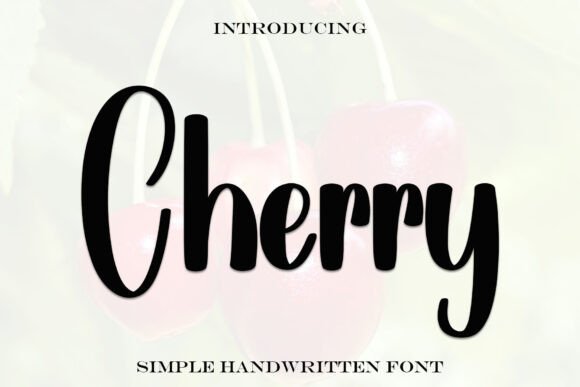
Introducing Cherry Font: Elevate Your Designs with Elegance
Are you on the hunt for a font that adds a touch of sophistication and charm to your projects? Look no further than Cherry Font, a stunning handwritten font that embodies elegance and timeless style. With its unique and distinct character, Cherry Font is perfect for designers and crafters seeking to create spectacular designs that leave a lasting impression.
The Charm of Cherry Font
Cherry Font is a beautifully crafted handwritten font that boasts an elegant touch, making it ideal for a wide range of projects. Whether you’re working on a logo, branding materials, invitations, or any other design that requires a personal touch, Cherry Font is sure to impress. Its classic and sophisticated style ensures that your designs will stand the test of time, remaining relevant and stylish for years to come.
Key Features of Cherry Font
- Handwritten Elegance: Cherry Font is meticulously designed to mimic the fluidity and charm of handwritten text, adding a personal and intimate feel to your designs.
- Distinctive Style: The font’s unique character set ensures that your designs will stand out from the crowd, offering a refreshing alternative to more traditional fonts.
- Timeless Appeal: Cherry Font’s classic style ensures that it will remain relevant and fashionable, even as design trends evolve.
- Versatility: Suitable for a wide range of projects, from digital designs to print materials, Cherry Font adapts effortlessly to various mediums and applications.
Cherry Font is a versatile tool that caters to the needs of both designers and crafters. Whether you’re a professional designer looking for a unique font to add to your portfolio or a crafter seeking to personalize your DIY projects, Cherry Font offers endless possibilities. Its user-friendly nature makes it accessible to individuals of all skill levels, ensuring that everyone can enjoy the benefits of this beautiful font.
How to Use Cherry Font in Your Projects
- Use it for Headings and Titles: The font’s elegance and readability make it perfect for headings and titles, where you want to make a strong impression.
Cherry Font is more than just a font – it’s a design element that can elevate your projects and add a touch of elegance and sophistication. Its unique style, versatility, and timeless appeal make it an excellent choice for designers and crafters alike. So why wait? Fall in love with Cherry Font and unlock a world of creative possibilities for your favorite projects.